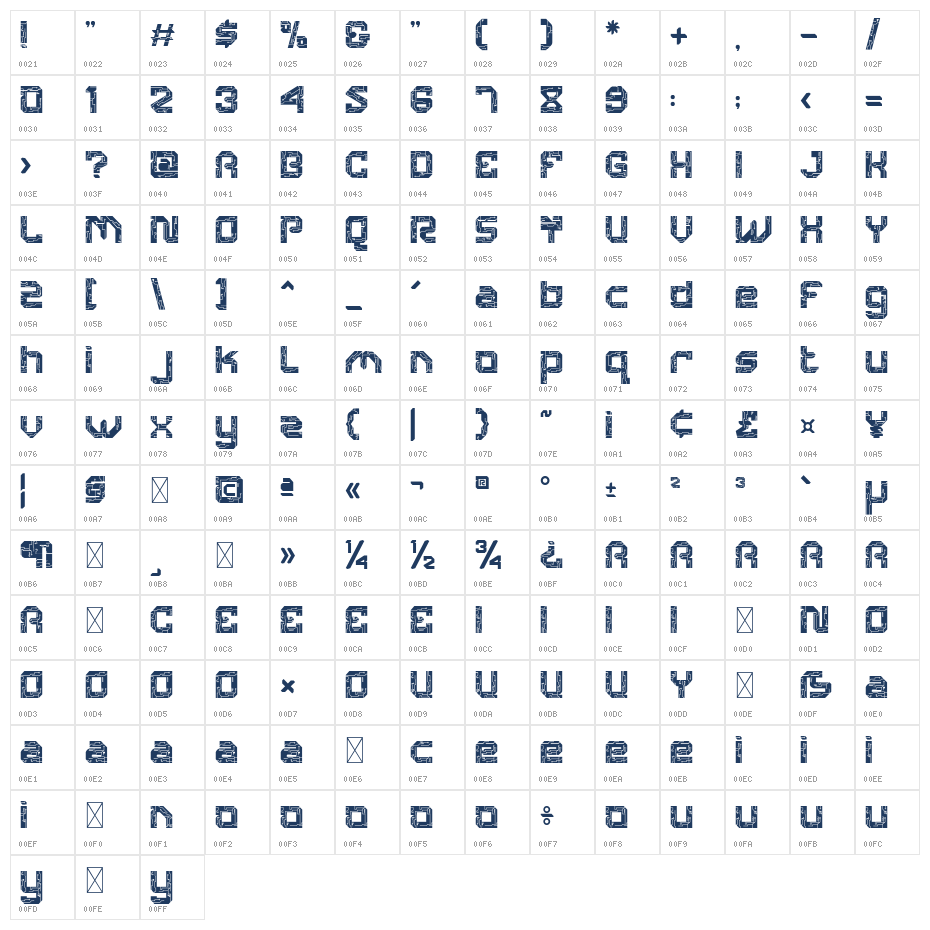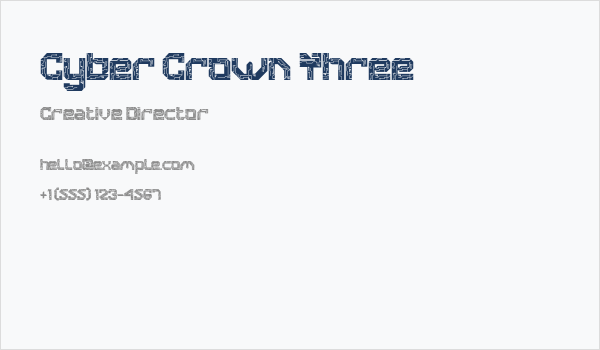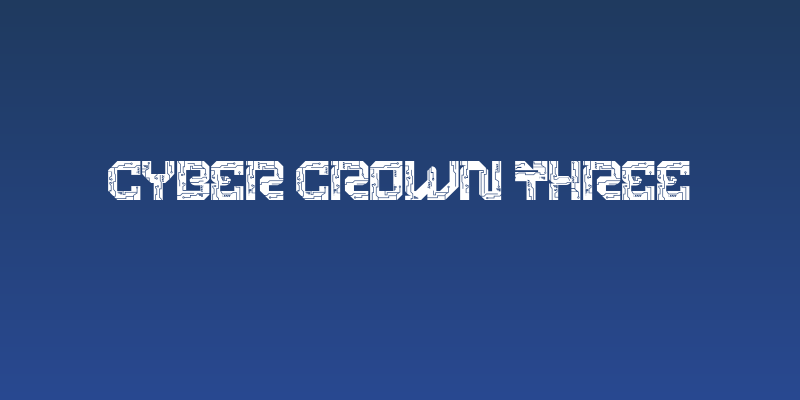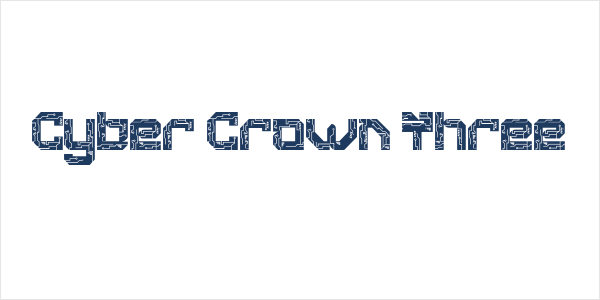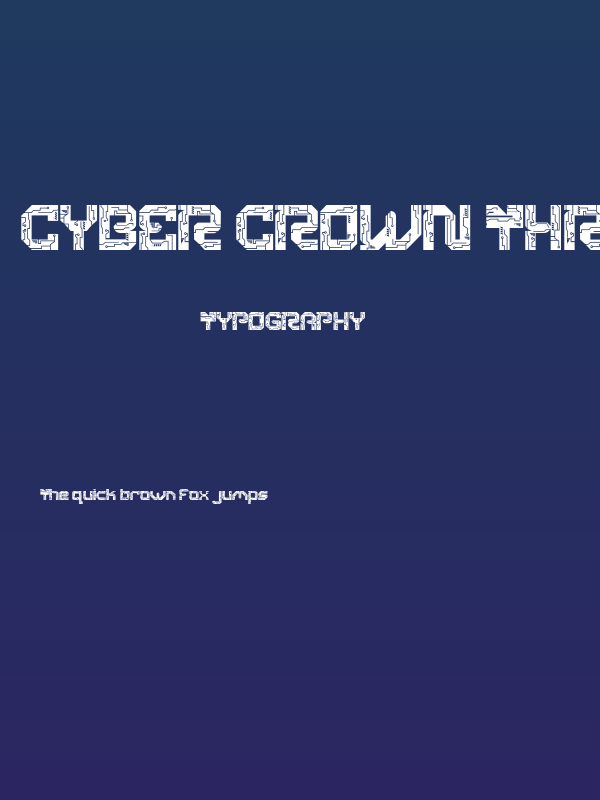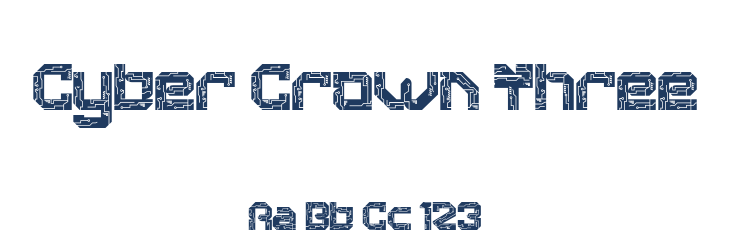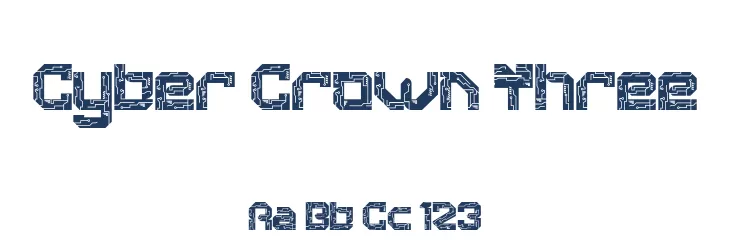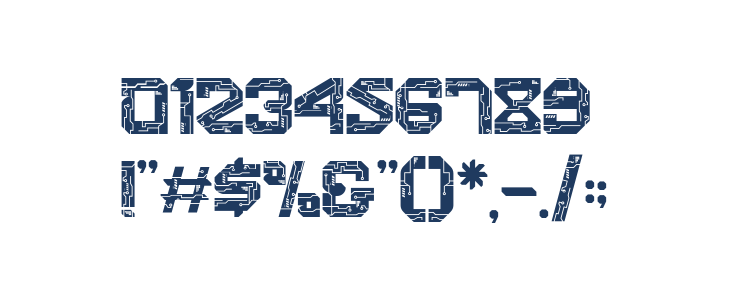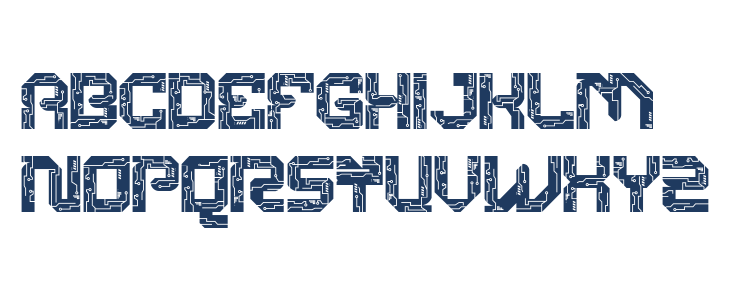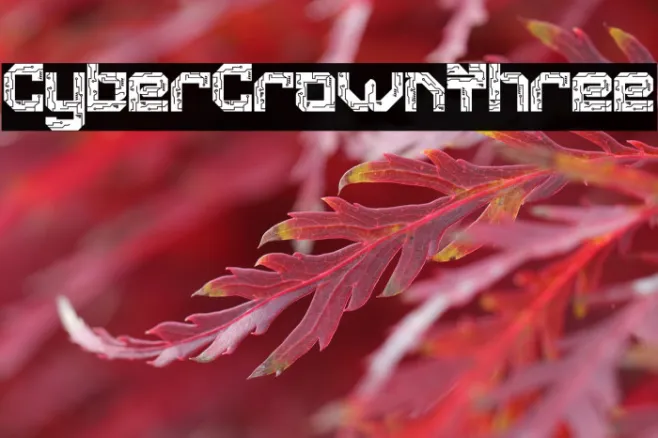
Cyber Crown Three Font
Cyber Crown Three Description
A futuristic, digital-inspired font with a blocky, circuit-like design, featuring intricate line details and a tech aesthetic.
| Overall Style | Futuristic, Tech-inspired |
| Use Case | Headlines, Logos, Titles, Digital interfaces |